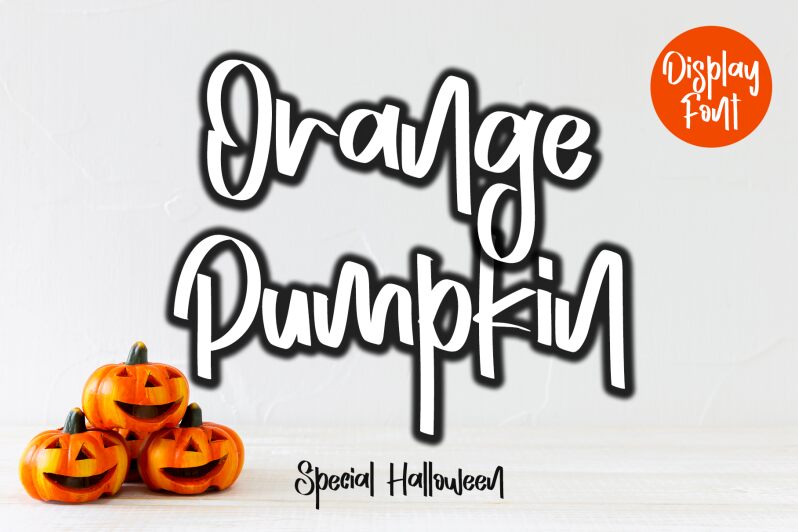
Orange Pumpkin font by Letterafa Studio is a handwritten font with a natural flow and modern vibe. Expressive, energetic, casual yet artful strokes give it a human touch ideal for projects that require playful typography. Its charming style captures the reader’s attention and adds artistic flair.